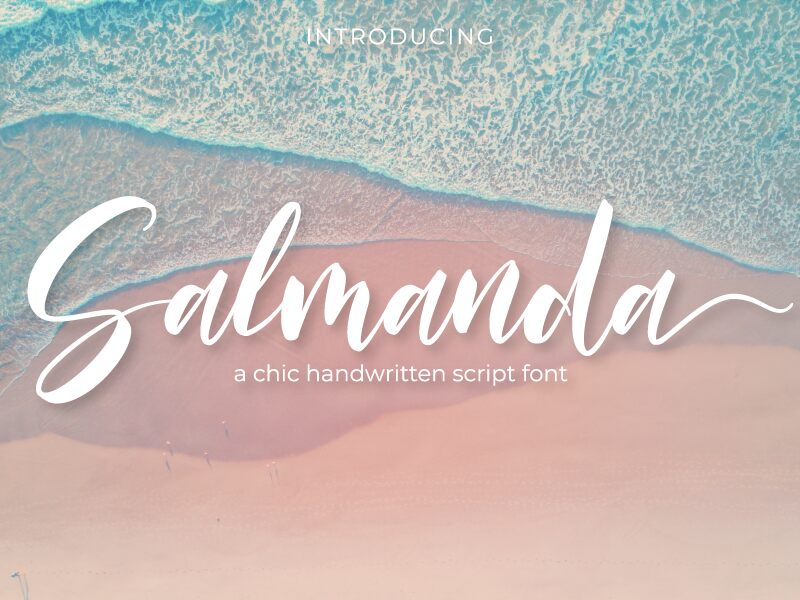
Salmanda, created by the talented designer NendesKombet, is a chic handwritten font that exudes elegance and sophistication. With its semi-light weight, this font is perfect for a wide range of projects. Use it to add a touch of refined beauty to wedding invitations, luxurious branding materials, or high-end fashion magazines. Its graceful strokes and delicate curves make Salmanda an ideal choice for feminine product packaging or romantic blog headers. Whether you're designing for the fashion industry or creating captivating social media graphics, Salmanda will elevate your project with its exquisite charm and timeless appeal.